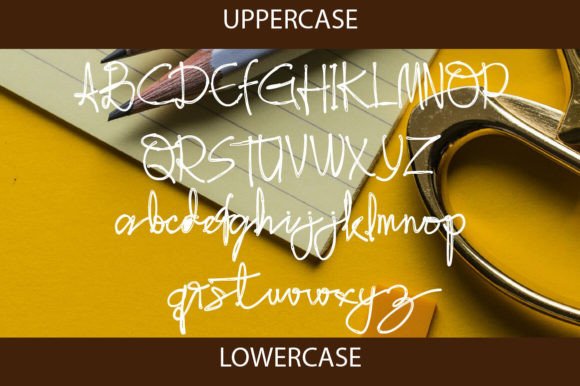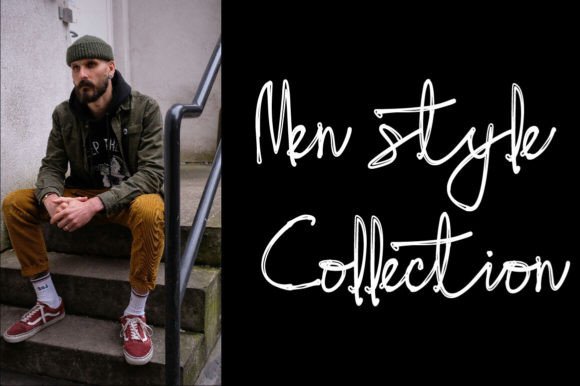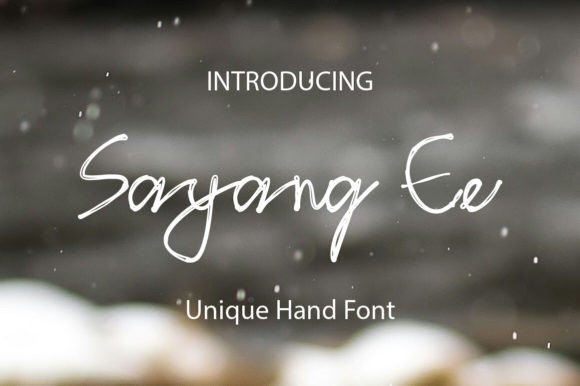
Unveiling the Sayang Ee font, a charmingly quirky typeface inspired by unique handwriting.
With its whimsical aesthetic and heartfelt touch, it encapsulates both warmth and individuality Sayang Ee will be the perfect addition to any design project where personality and uniqueness are at the forefront.